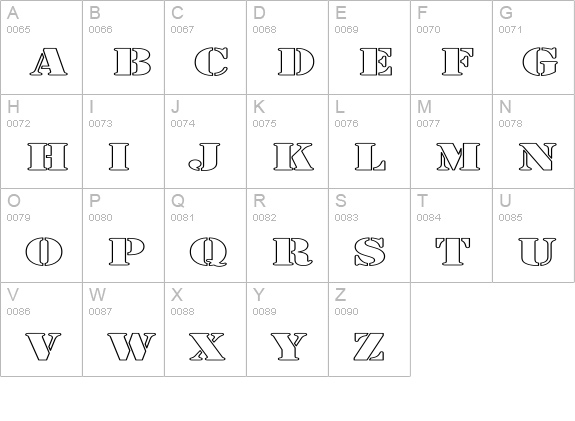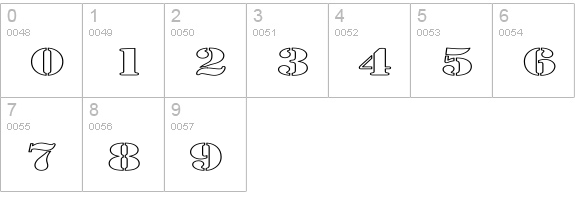
Army Hollow Expanded is a distinctive, extended-width variant in the Army typeface family \xE2\x80\x94 well suited to design and typography projects.
Army Hollow Expanded font is a stylish and versatile typeface that exudes strength and professionalism. Its sharp edges and bold lines give it a commanding presence, making it perfect for military-themed designs, logos, and branding projects. This font is designed with an expanded width, adding to its impact and making it stand out on any project. What's even better is that the Army Hollow Expanded font is available for free download at FontsMarket.com. This means you can easily access this powerful font and use it in your designs without any cost. Whether you're working on a project that requires a bold and impactful font or simply want to add a touch of military-inspired style to your work, Army Hollow Expanded font is the perfect choice. Download it today and elevate your designs with this impressive typeface.